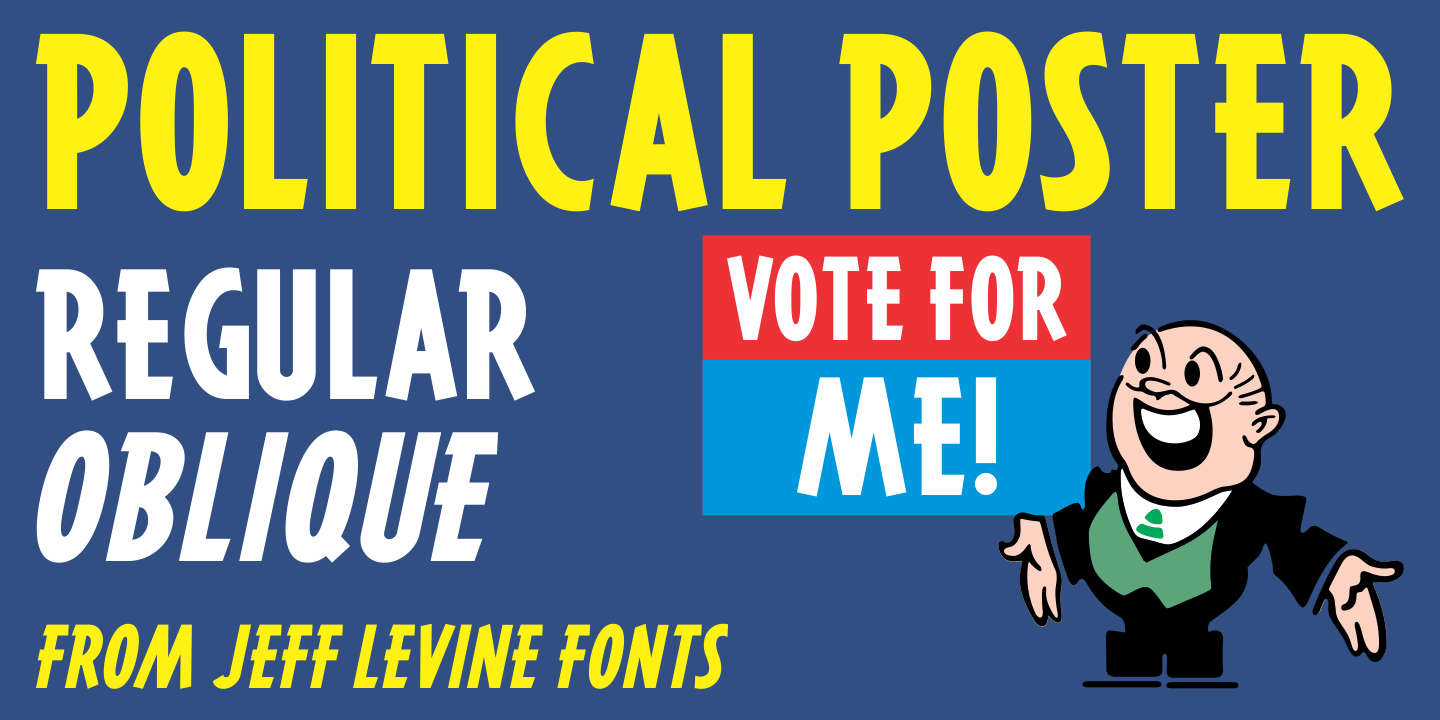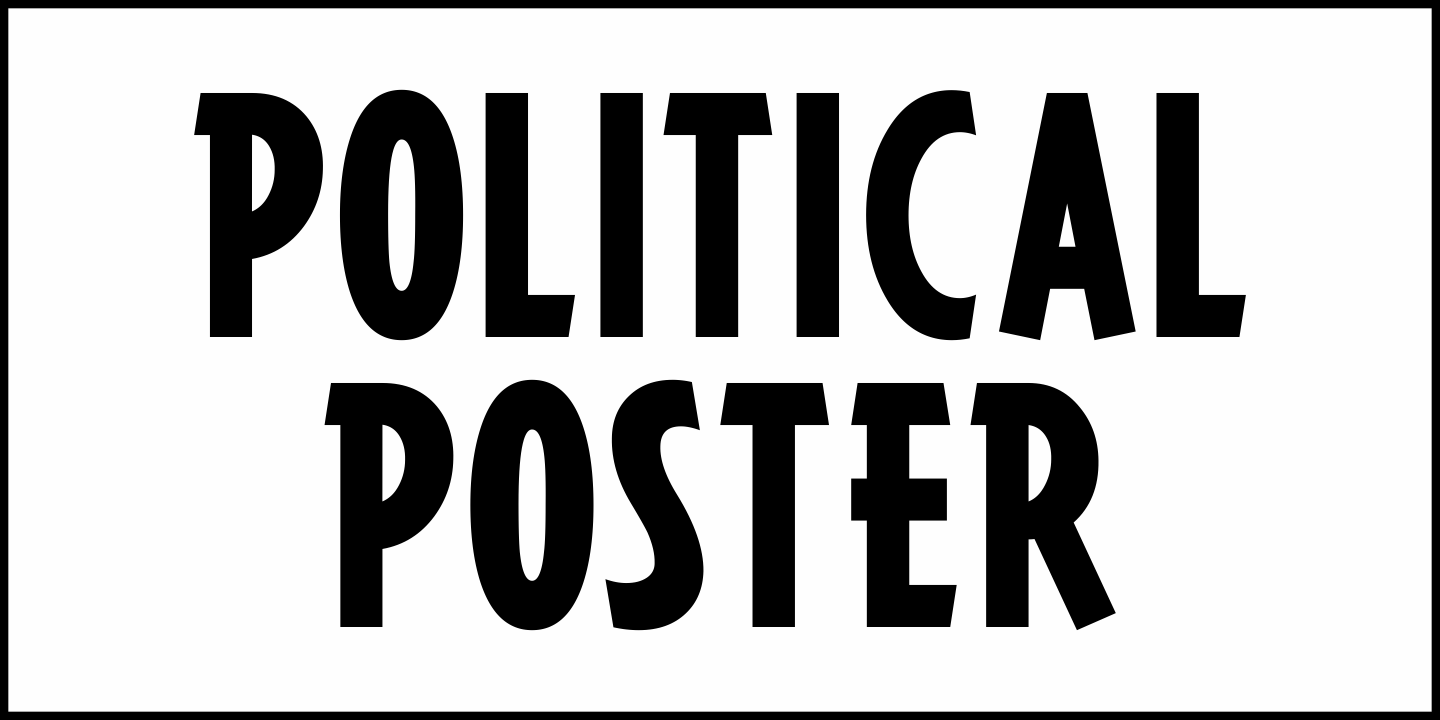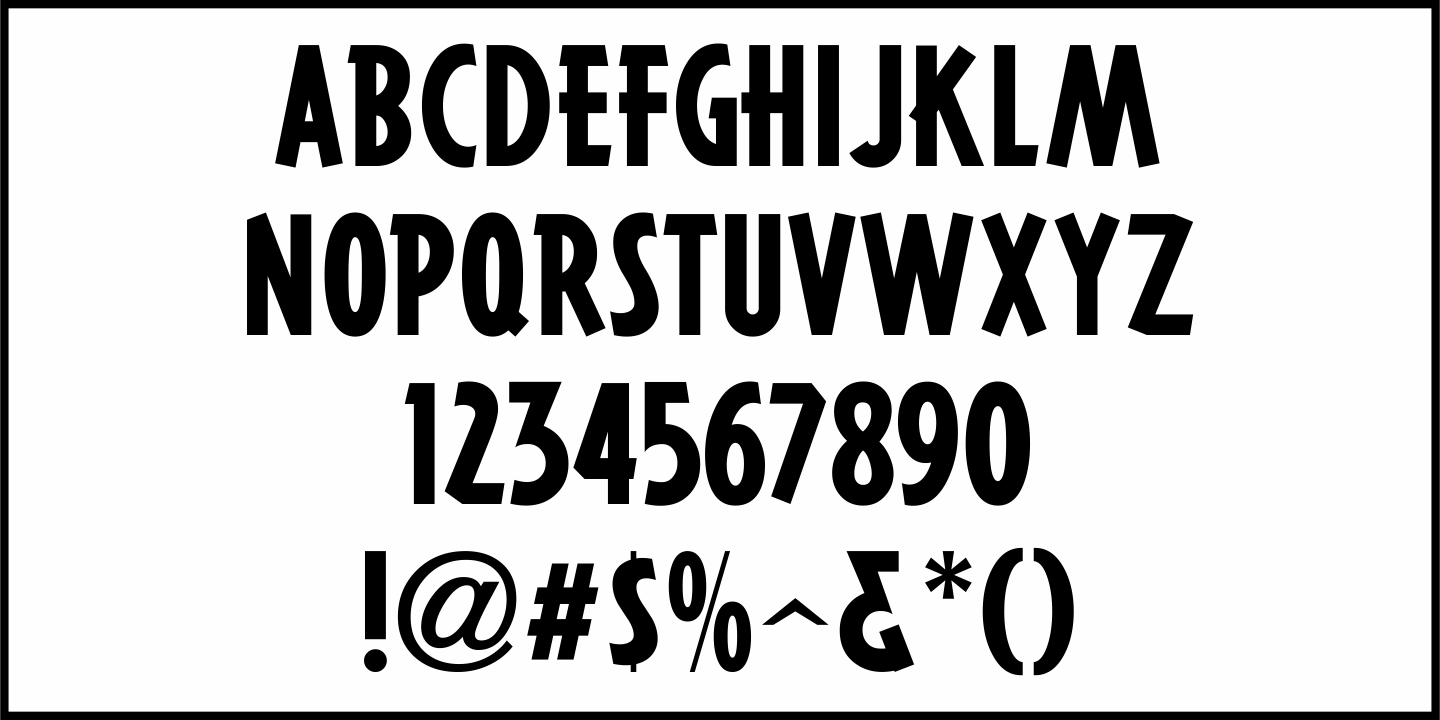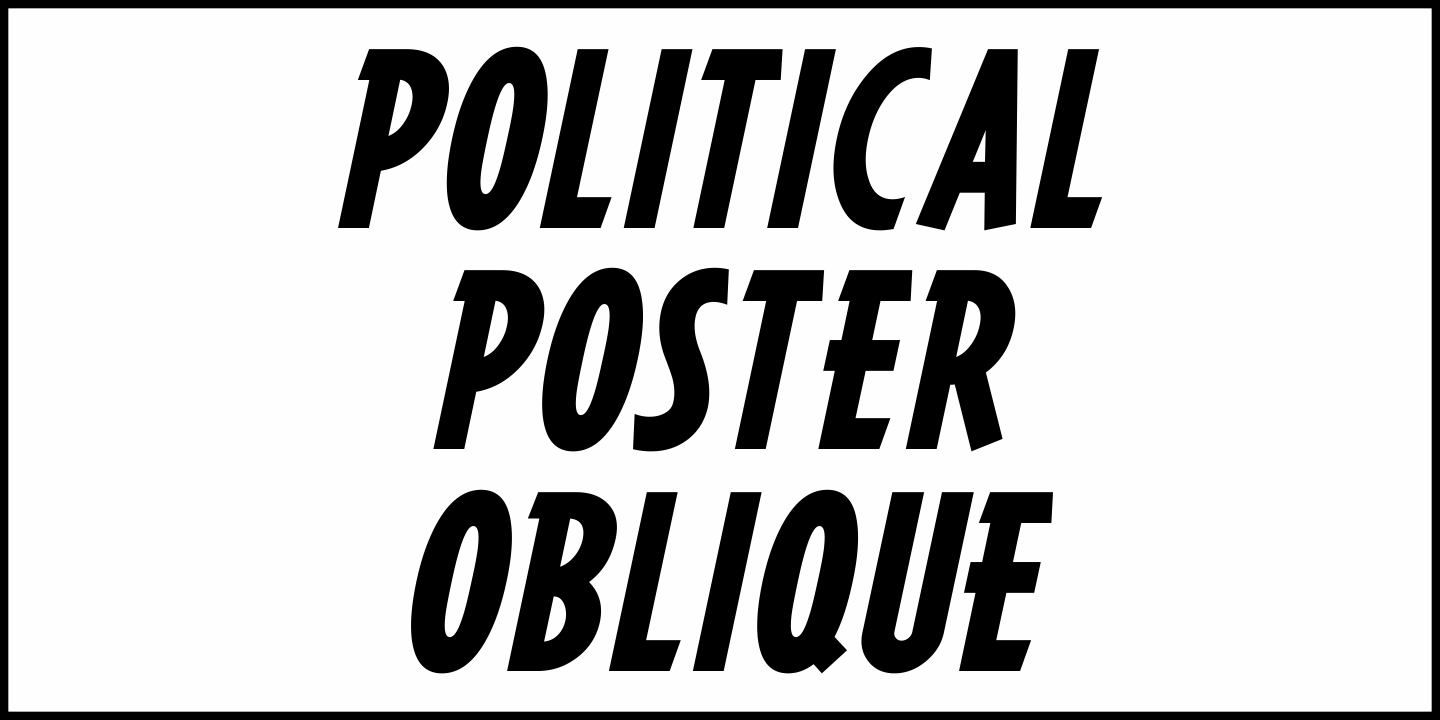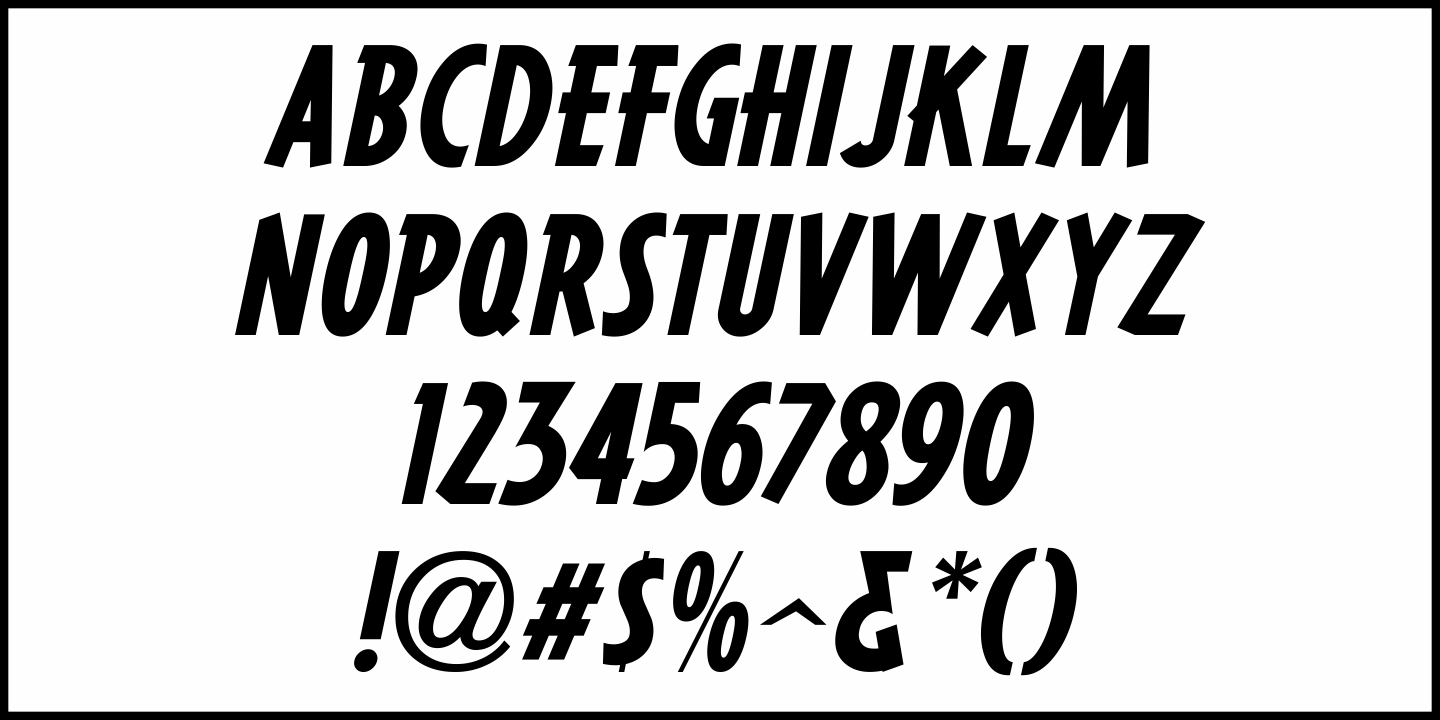
Political Poster
Inspired by the hand lettering on a 1940 campaign poster for Franklin Delano Roosevelt, this condensed, casual sans serif design is now available as Political Poster JNL – in both regular and oblique versions.
Political Poster JNL Oblique
Political Poster JNL Regular